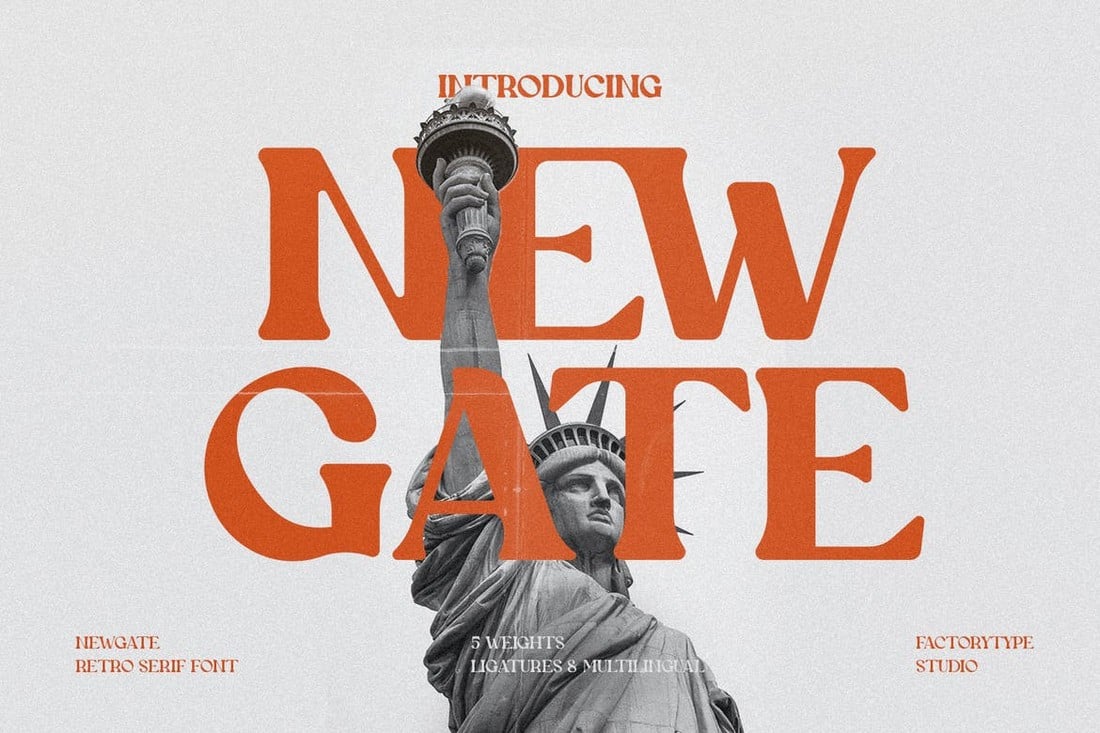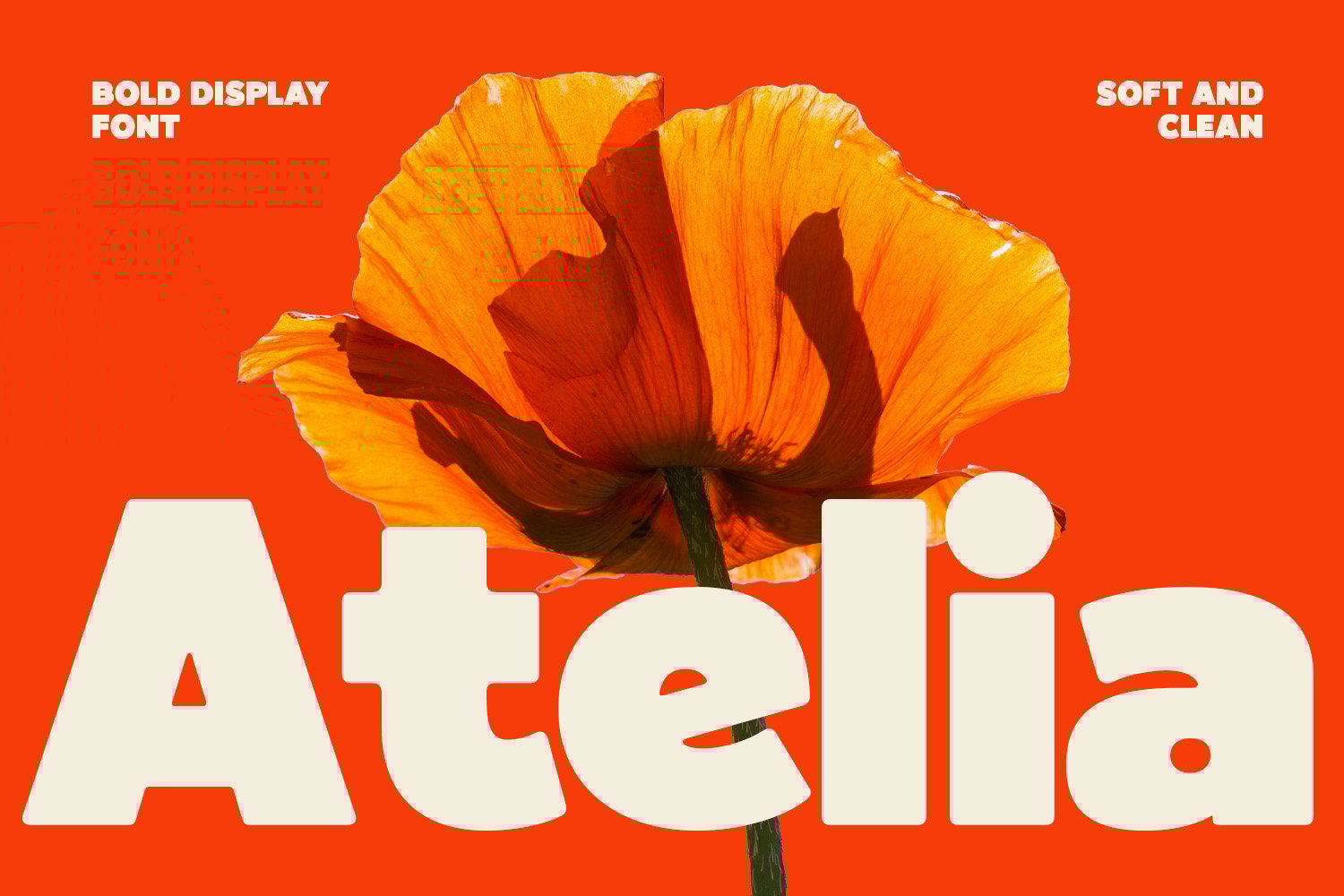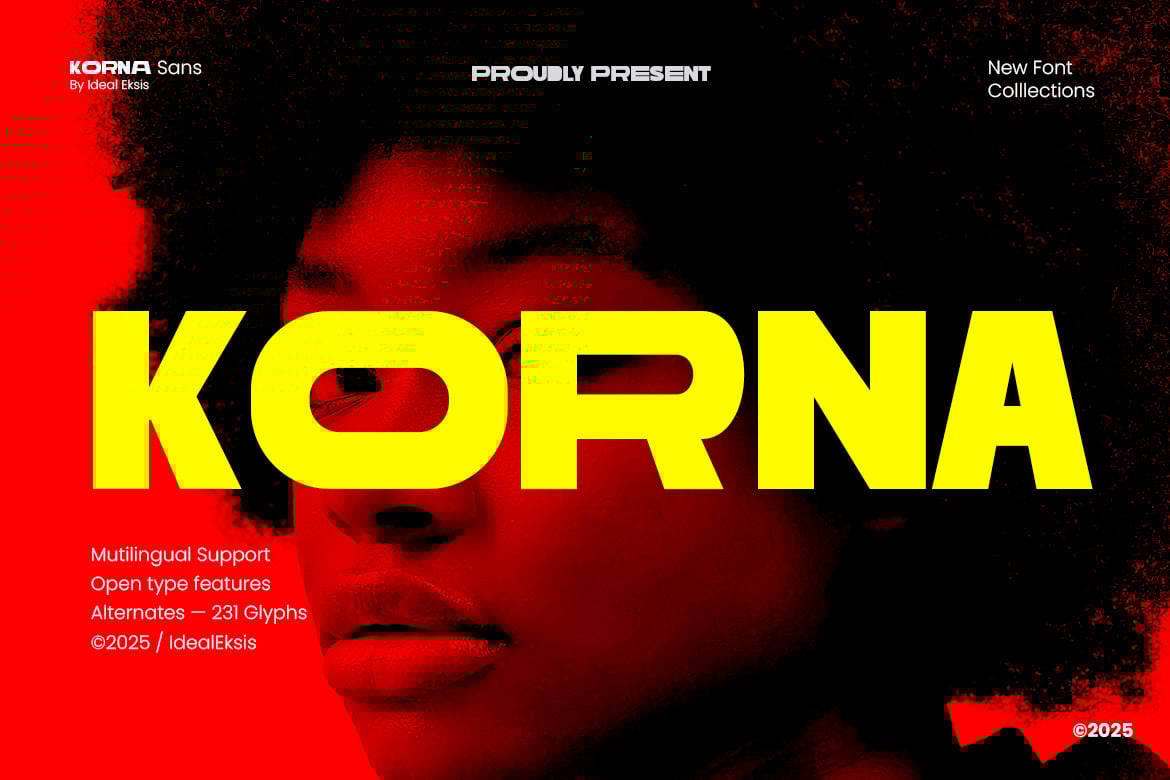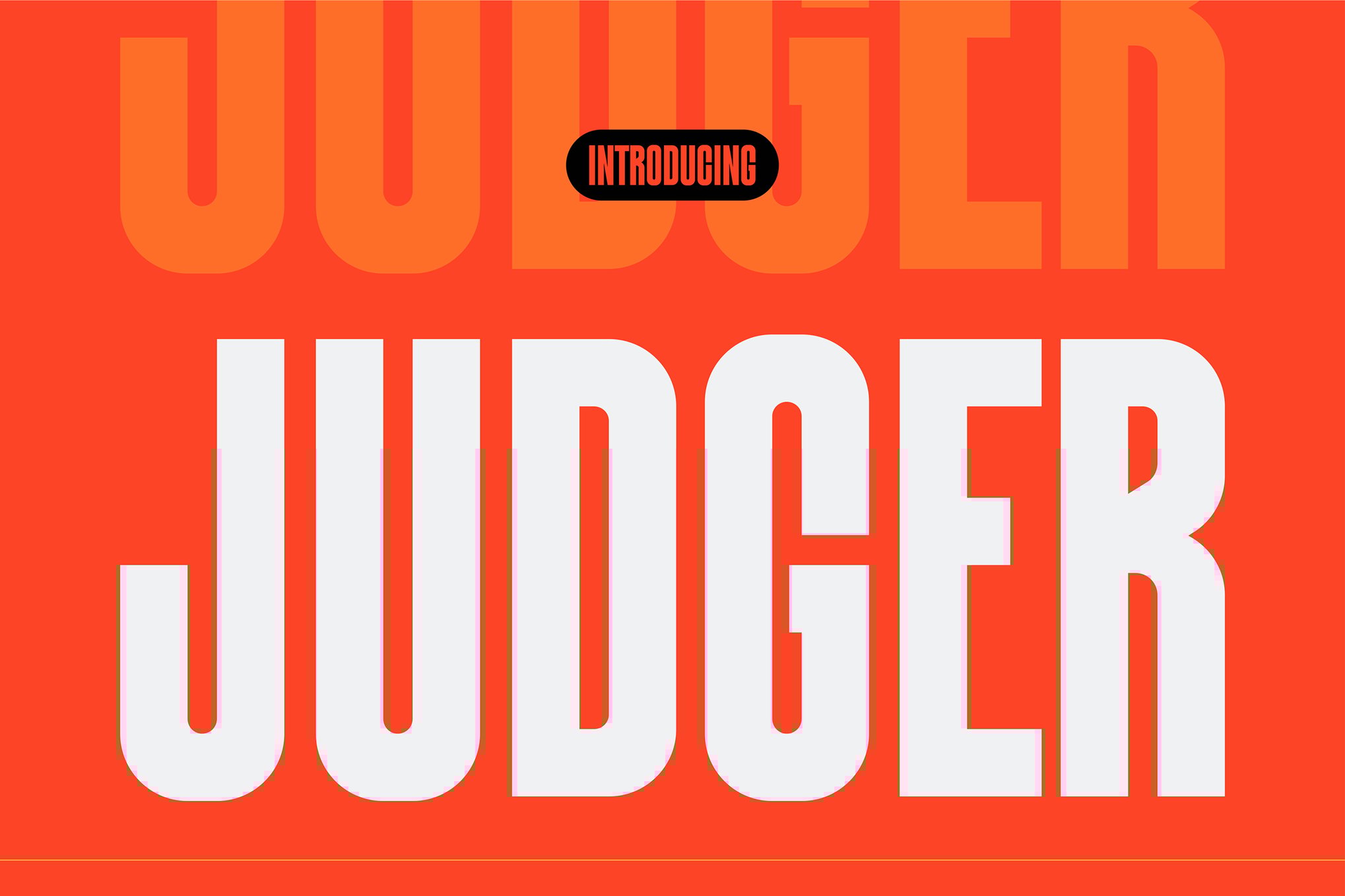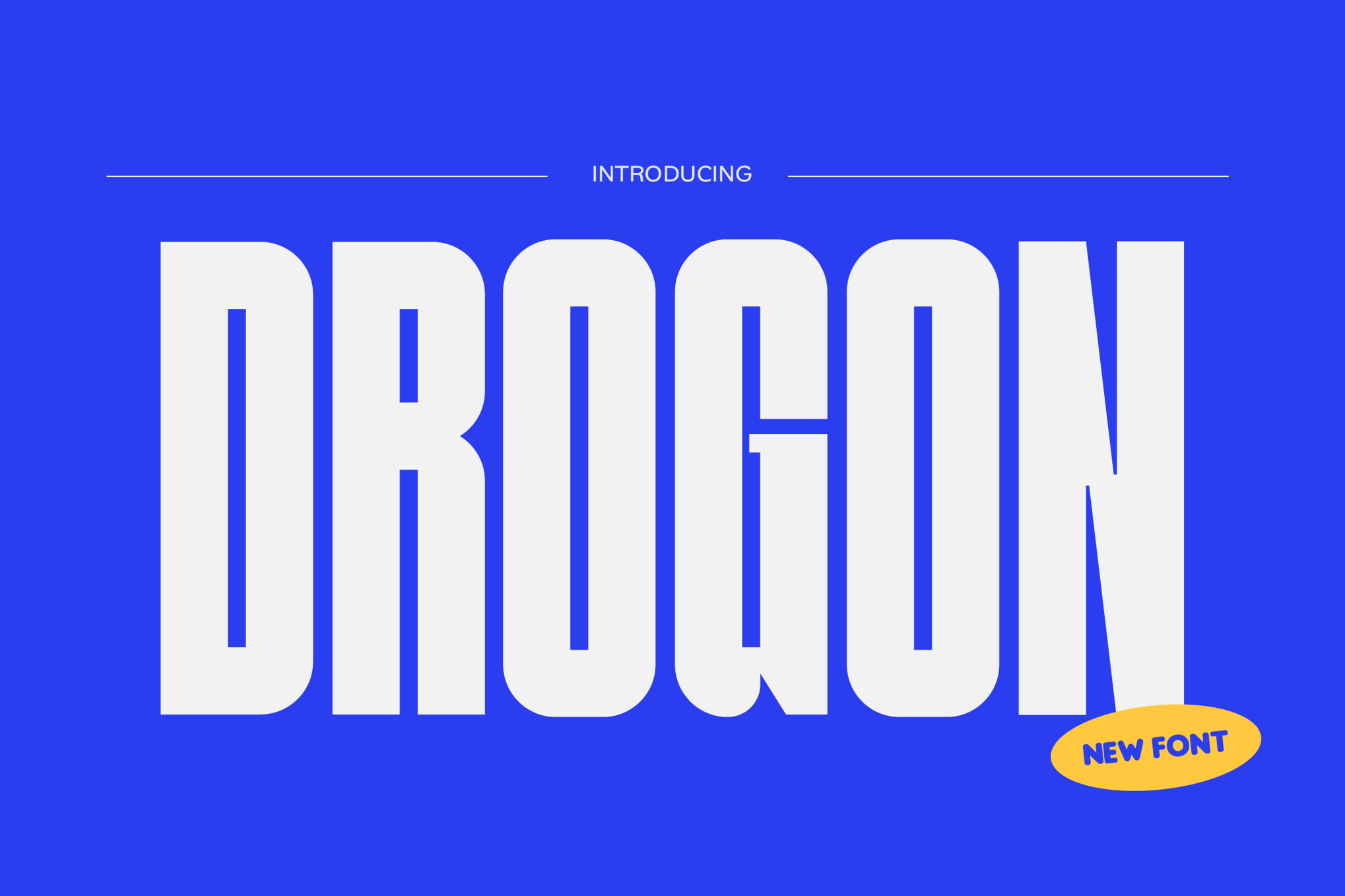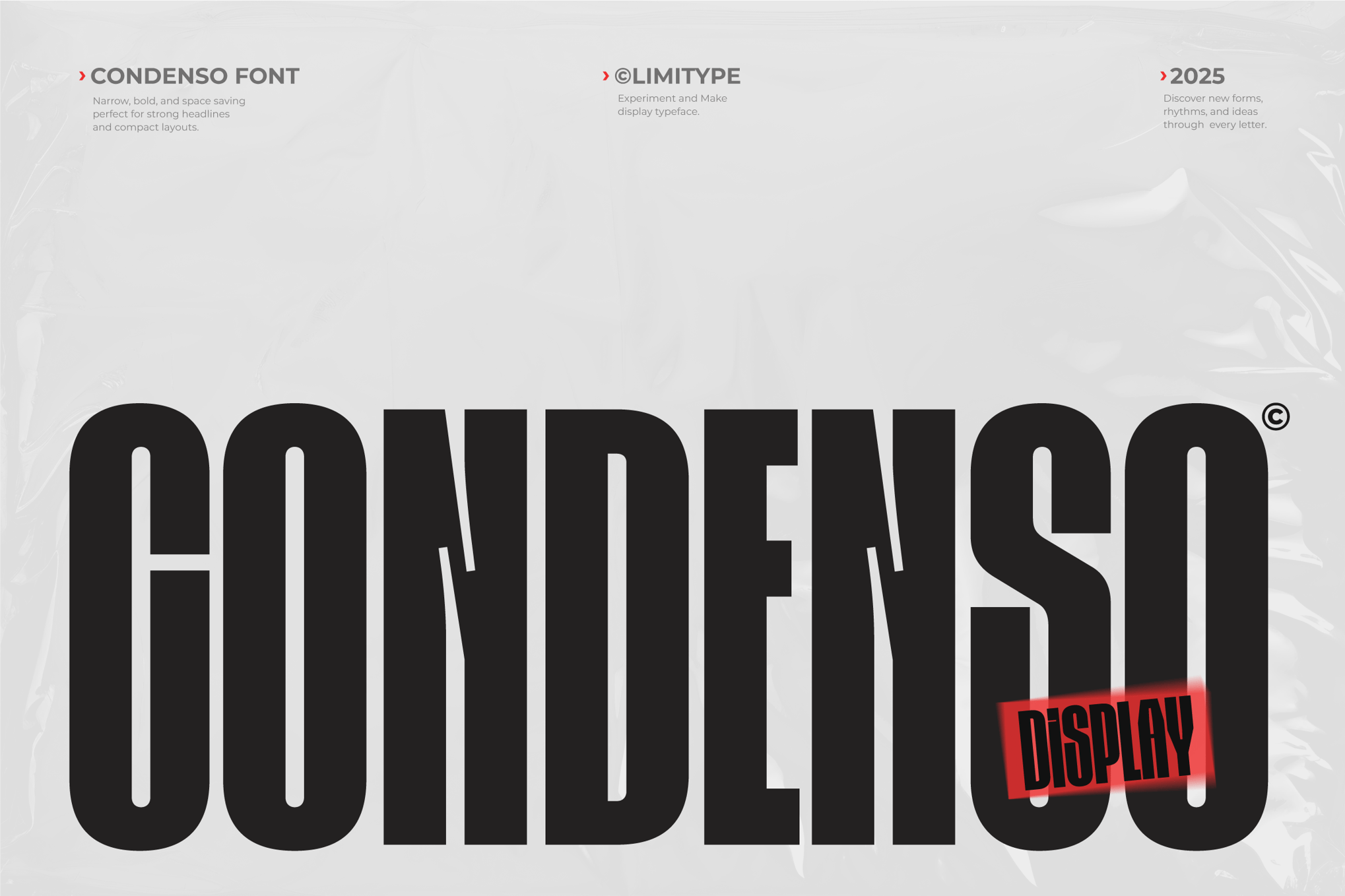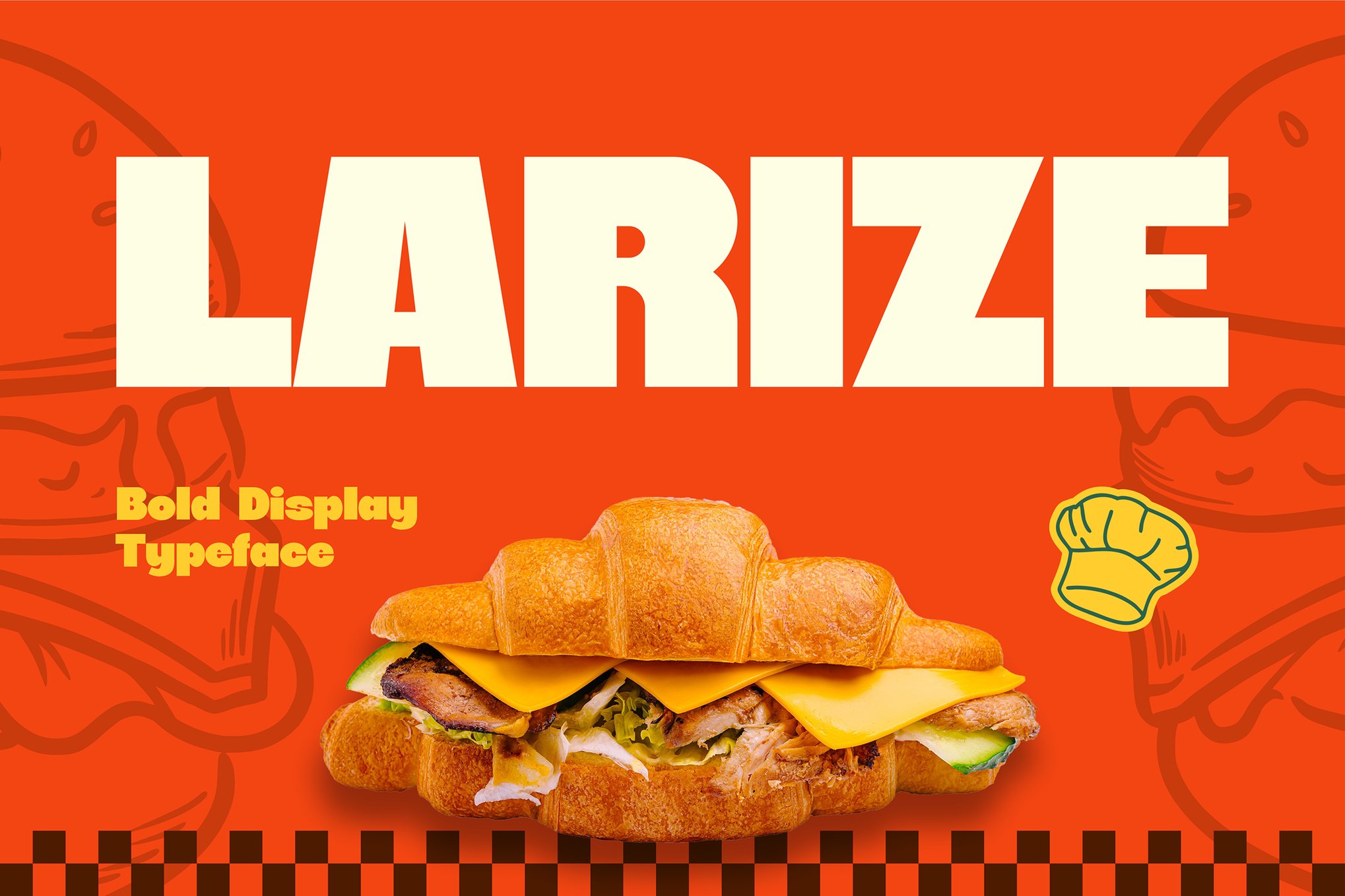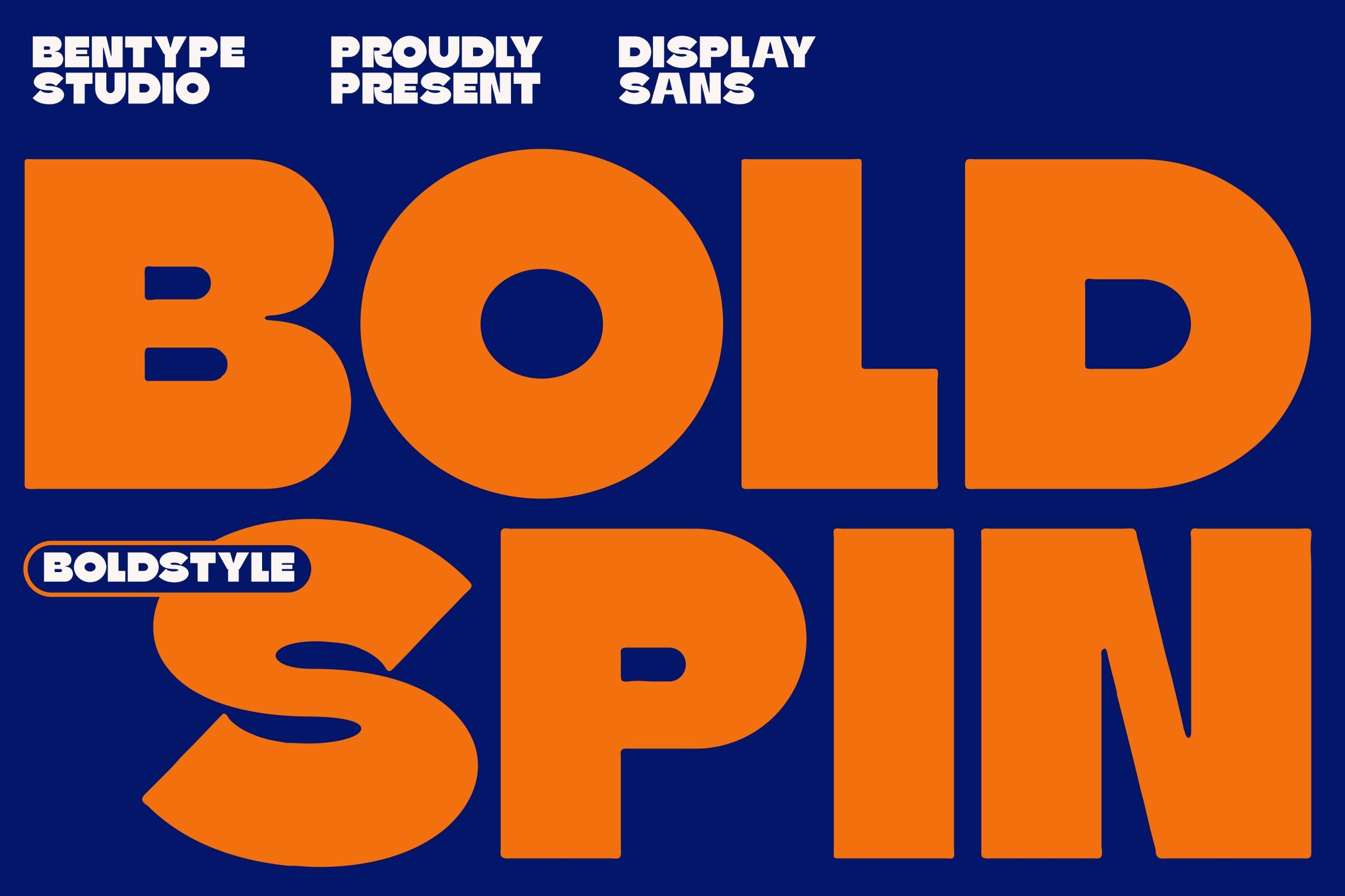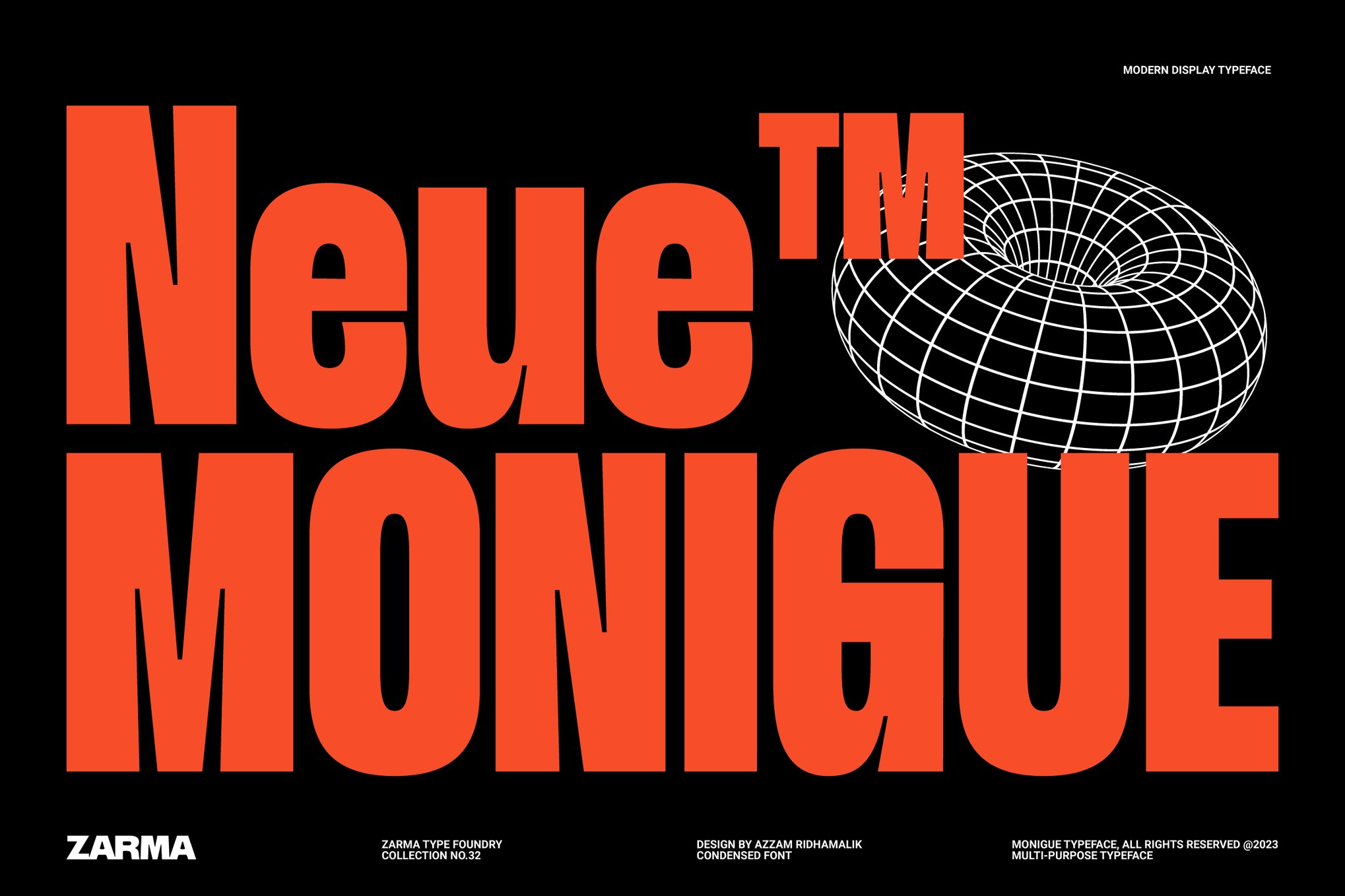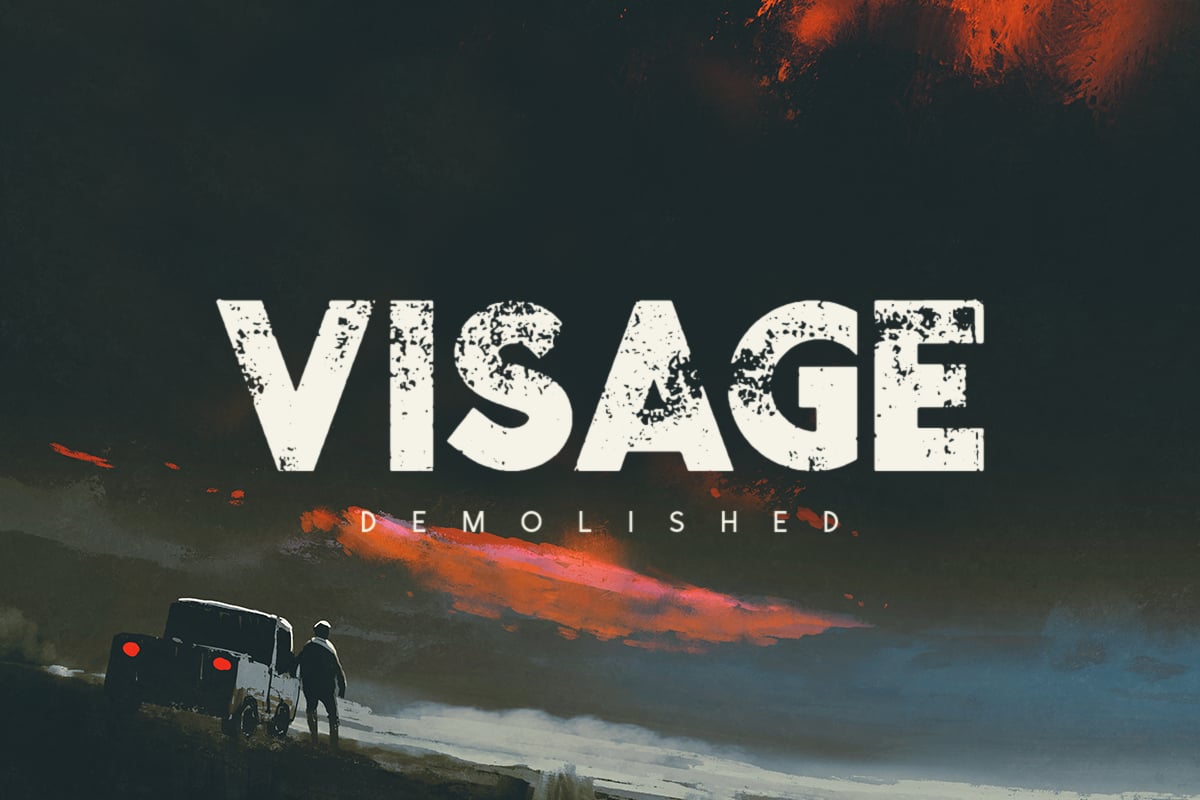
Fonts come in all shapes and sizes, but when it comes to poster design, there are certain types of fonts that can help you make bold statements and attract attention. In this post, we feature some of the best fonts for posters you can use to create the perfect poster design.
It’s quite difficult to generalize poster design. There are just too many types of posters that require various design standards. For example, a poster you design for a business conference and a poster you make for a summer beach party will require completely different designs, including different colors, shapes, layouts, and more importantly, fonts.
When creating this collection of fonts, we decided to cover all categories of poster designs and include both formal and casual fonts you can use to design titles, headers, and text for various types of posters. We’re also featuring a set of tips for choosing a poster font to help get you started.
Hopefully you’ll find the perfect typeface that matches your project!
Devant Horgen – Modern Poster Font
Devant is a modern decorative font that’s ideal for designing creative poster titles, website headers, banner headings, and much more.
The font comes with a set of beautiful, tall, and slightly rounded set of characters. And it’s available in multiple versions, including OpenType, TrueType, and WebFont versions.
Why This Is A Top Pick
The clean, narrow, and smooth lettering design of this font will ensure your titles are clearly visible even from afar while making your designs look more modern and professional.
Newgate – Classic Poster Font
Newgate is an attractive font that features a beautiful contemporary design that will fit in nicely with various types of business and creative poster designs. Inspired by typography from the 70s, the font comes in 5 different weights and lots of ligatures.
Atelia – Trendy Poster Font
Atelia is a modern yet trendy poster font characterized by its soft boldness. With thick rounded strokes and smooth curves, it offers a warm and inviting feel, ideal for branding, packaging, and engaging headlines.
Korna – Bold Poster Font
Korna is a modern font designed for a strong visual impact. Ideal for headlines, posters, branding, editorials, and digital visuals, its bold letterforms and wide geometrical structure ensure clarity and brightness.
Judget – Big Poster Font
Judget is a striking, modern typeface perfect for use in advertising and design projects. Exhibiting a crisp vertical rhythm, the elongated structure and clean edges demand attention in both print and digital projects.
Drogon – Narrow Poster Font
Drogon is a dynamic, modern display font ideal for creating energy-driven visual projects. Featuring tall, bold letterforms with a geometric structure, this font is designed to radiate focus and determination.
Condenso – Creative Poster Font
Featuring a sleek, narrow form, Condenso is a contemporary condensed display font that breathes life into your headlines, posters, and urban themes. It includes a unique inktraps design, adding flair to your merchandise and branding projects.
Larize – Stylish Poster Font
Larize is a bold, stylish poster font designed to grab attention and exude energy. Its tight spacing, heavy proportions, and clean terminals make it ideal for food-related branding, packaging, and promotions.
Boldspin – Big, Bold Poster Font
Boldspin is a sans display poster font that brings a bold and unique character to your designs. With its extra thick letterforms, it stands out prominently, offering a nostalgic charm that designers love. Despite its limited character set and resolution, it’s ideal for display needs, headlines, and banners.
Monigue – Condensed Poster Font
Monigue is a condensed, sans serif poster font, combining bold, modern design inspiration from the 2000s with a fresh twist. Its commanding presence makes it excellent for logos, impressive website headlines, and innovative poster designs.
Visage Demolished – Textured Poster Font
Visage Demolished is a textured poster font that perfectly fits grungy titles. Essential for creating a rugged appeal, this unique font includes uppercase multilingual letters, numbers, and punctuation. Its versatile design aids in creating a visually appealing impact, while still maintaining readability.
Rayon – Retro Poster Font
Rayon is a retro poster font that is bold, modern, and visually impactful in design. This vintage-inspired typeface boasts thick, confident letterforms and geometric edges, capturing the spirit of mid-century advertising with a contemporary edge.
Brimons – Big Poster Font
If you’re looking for a big bold font with thick letters to craft attention-grabbing titles for posters, this is a must-have for you. This font comes with tall and narrow letters that are perfect for poster headings. It includes all-caps letters with a set of small caps characters.
Sysmatic – Soft Condensed Poster Font